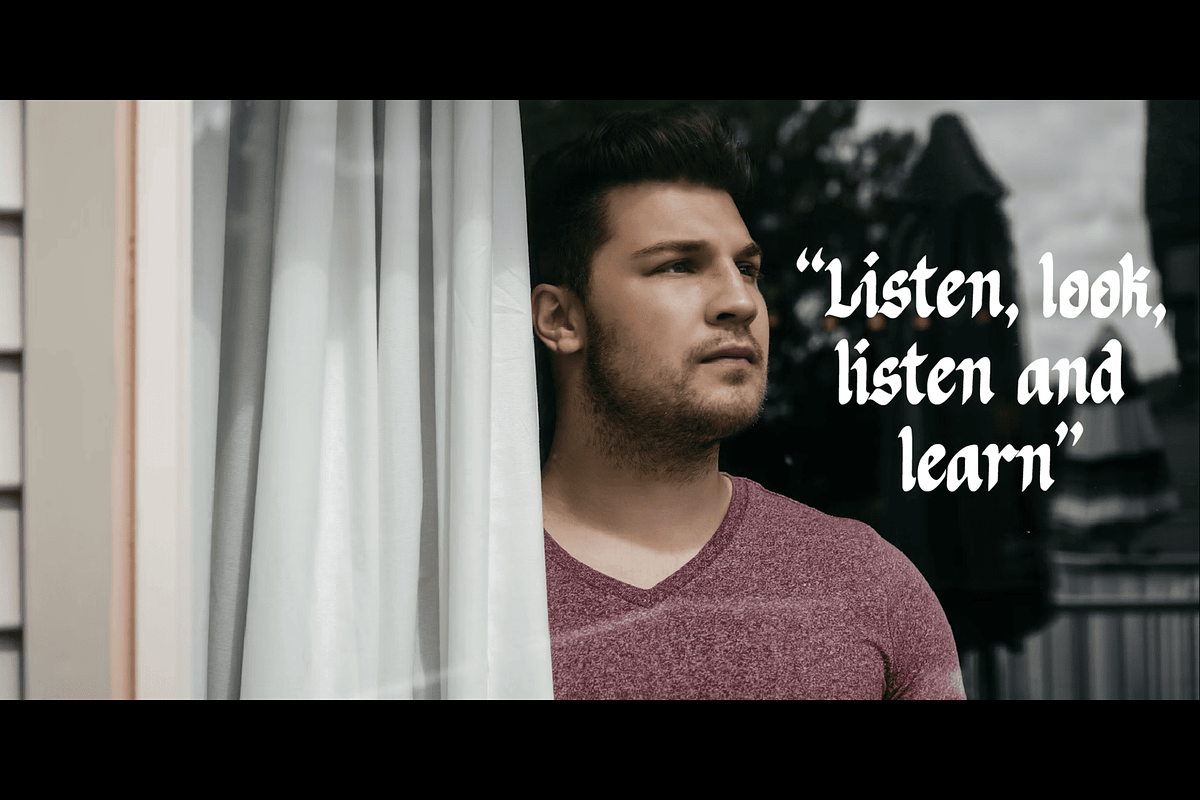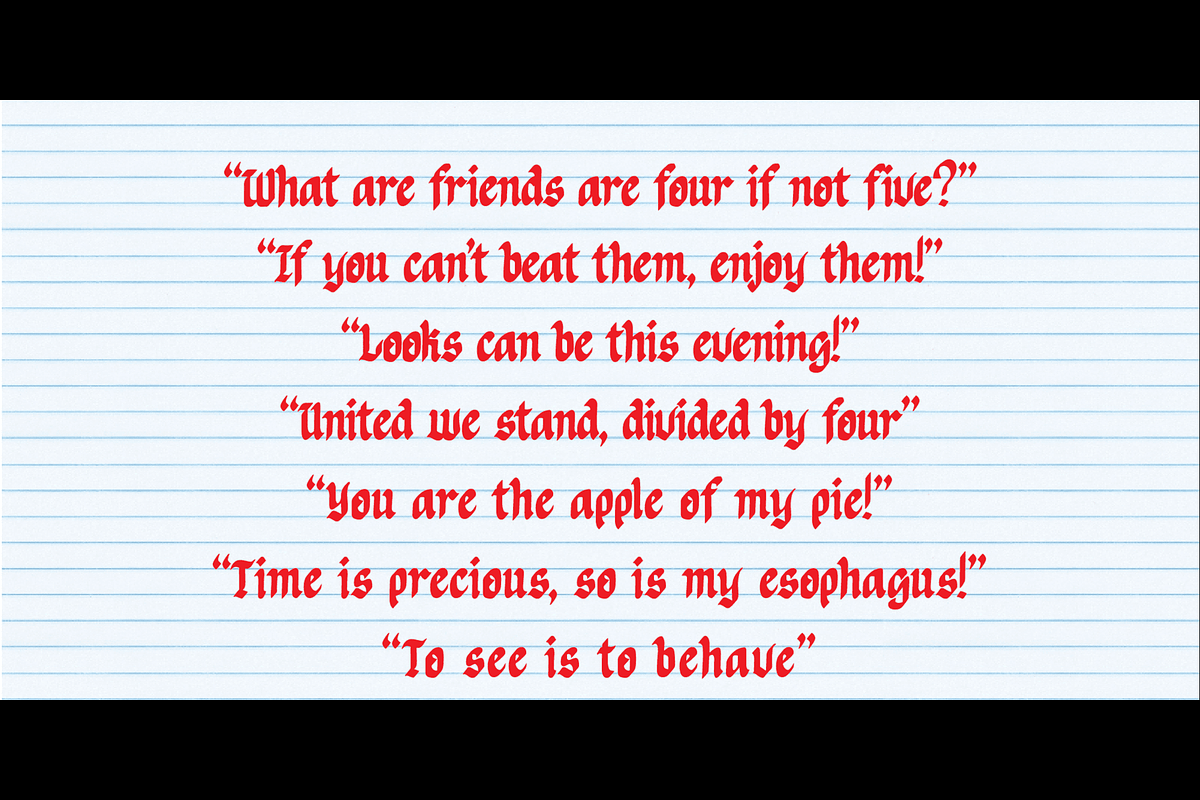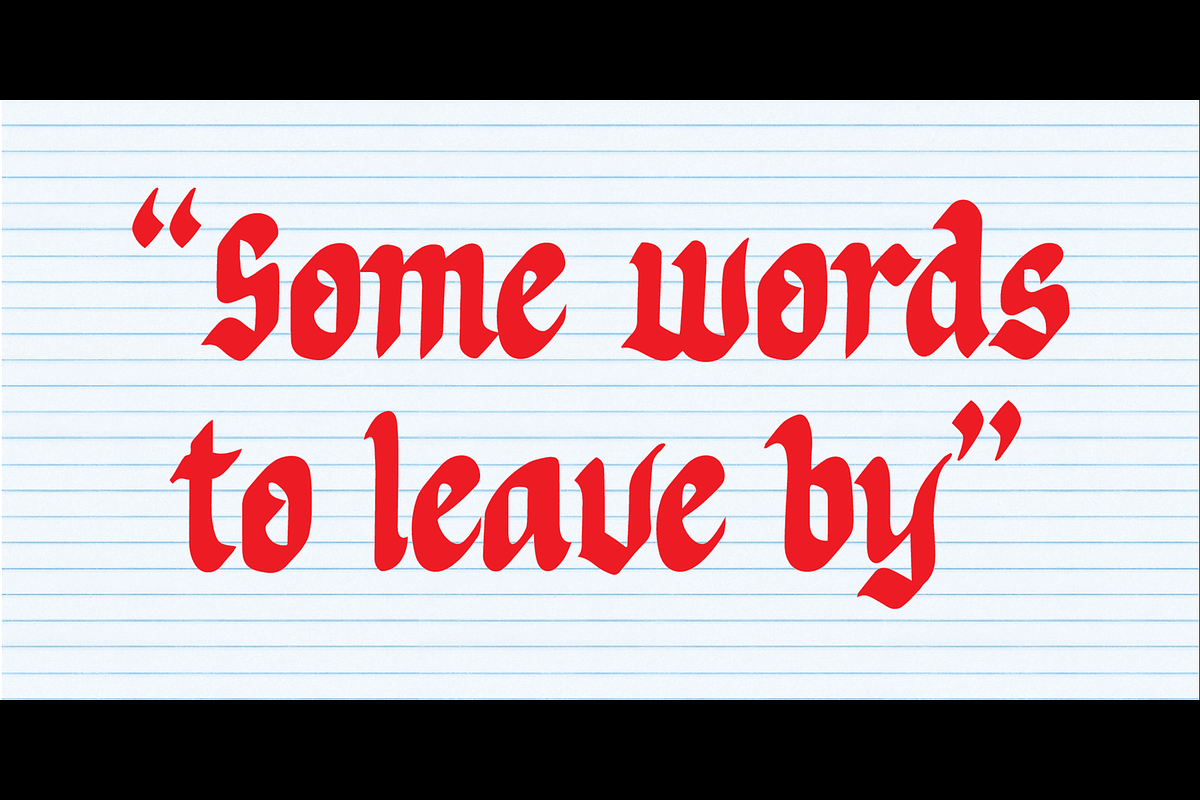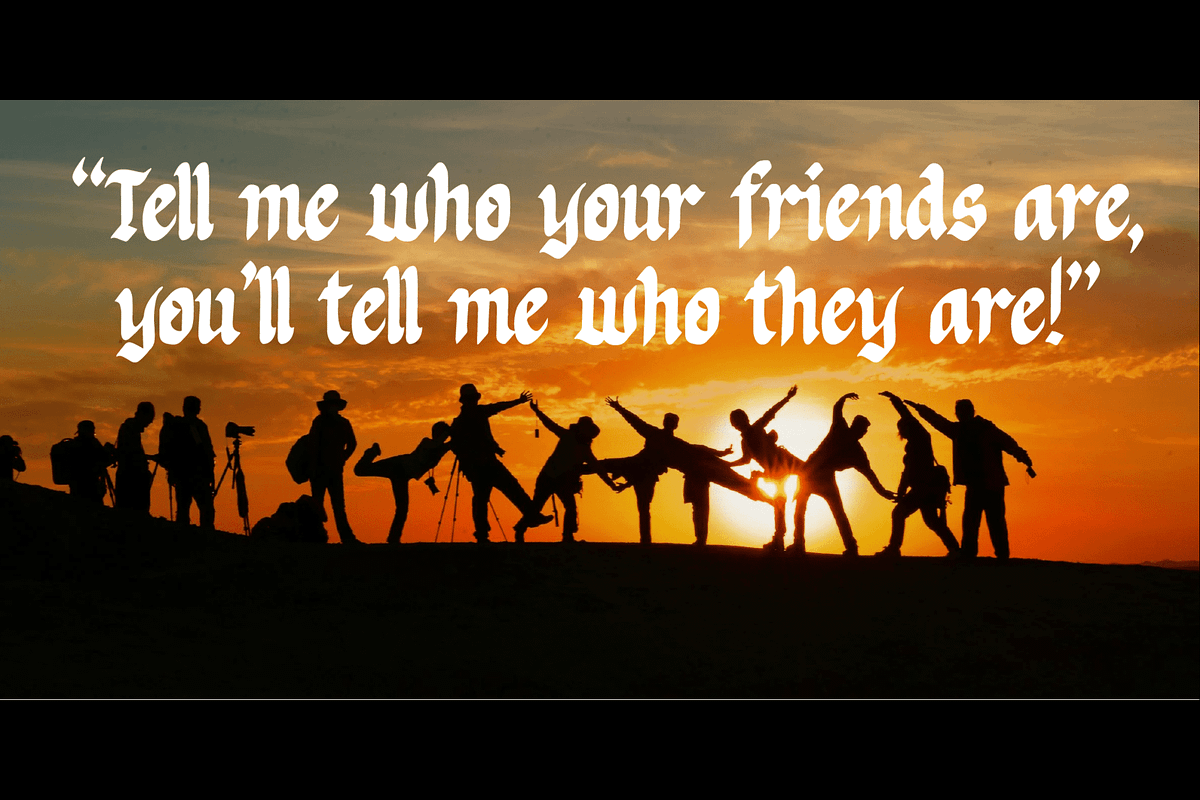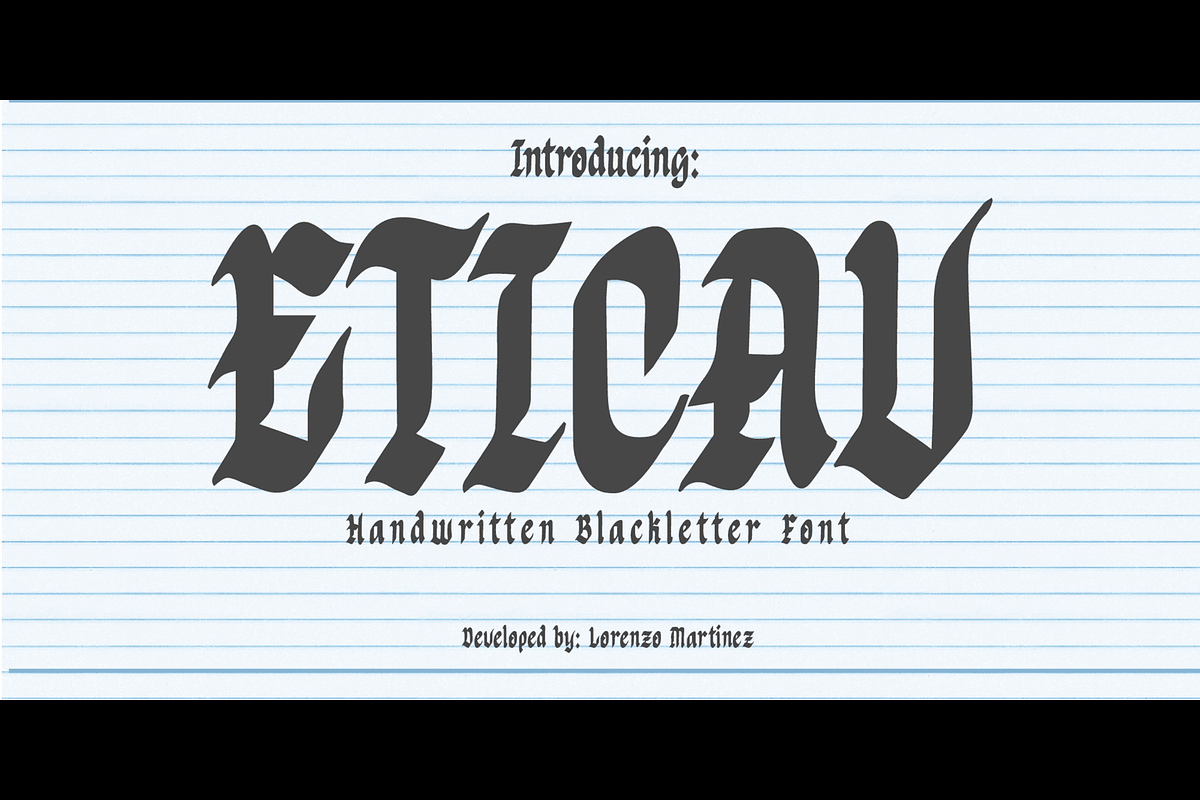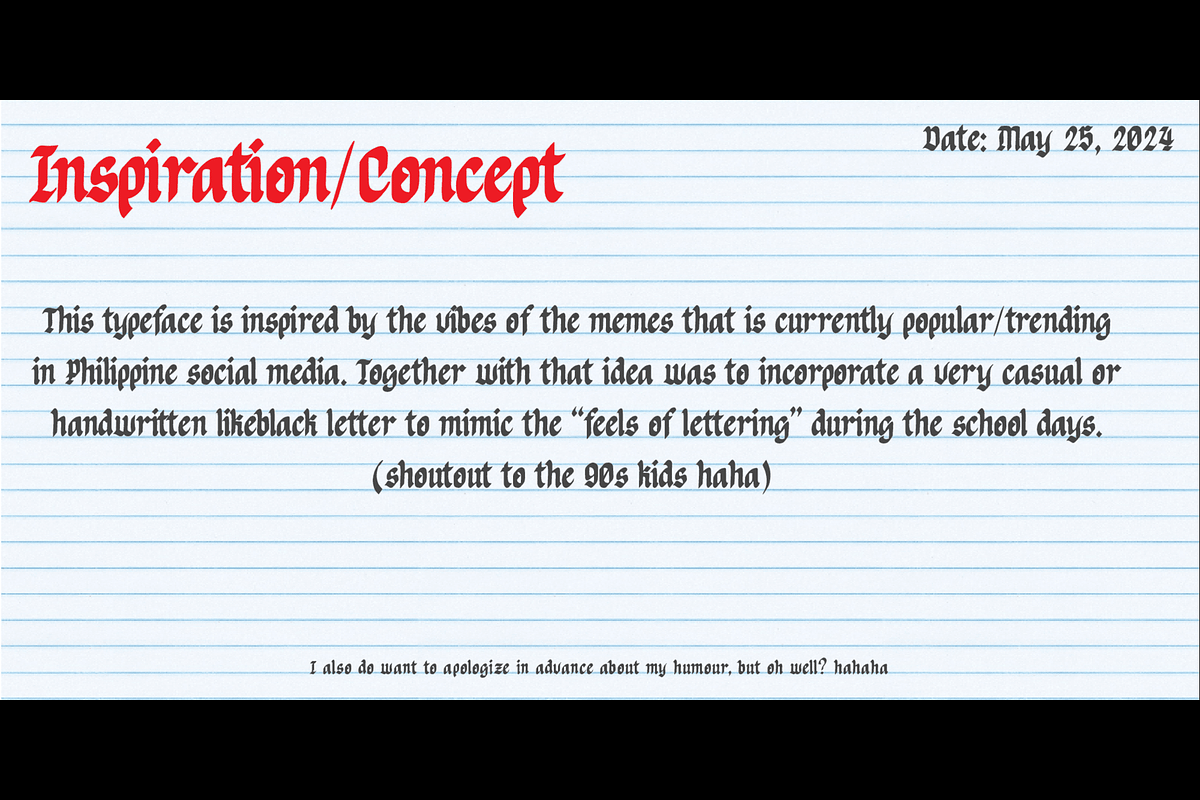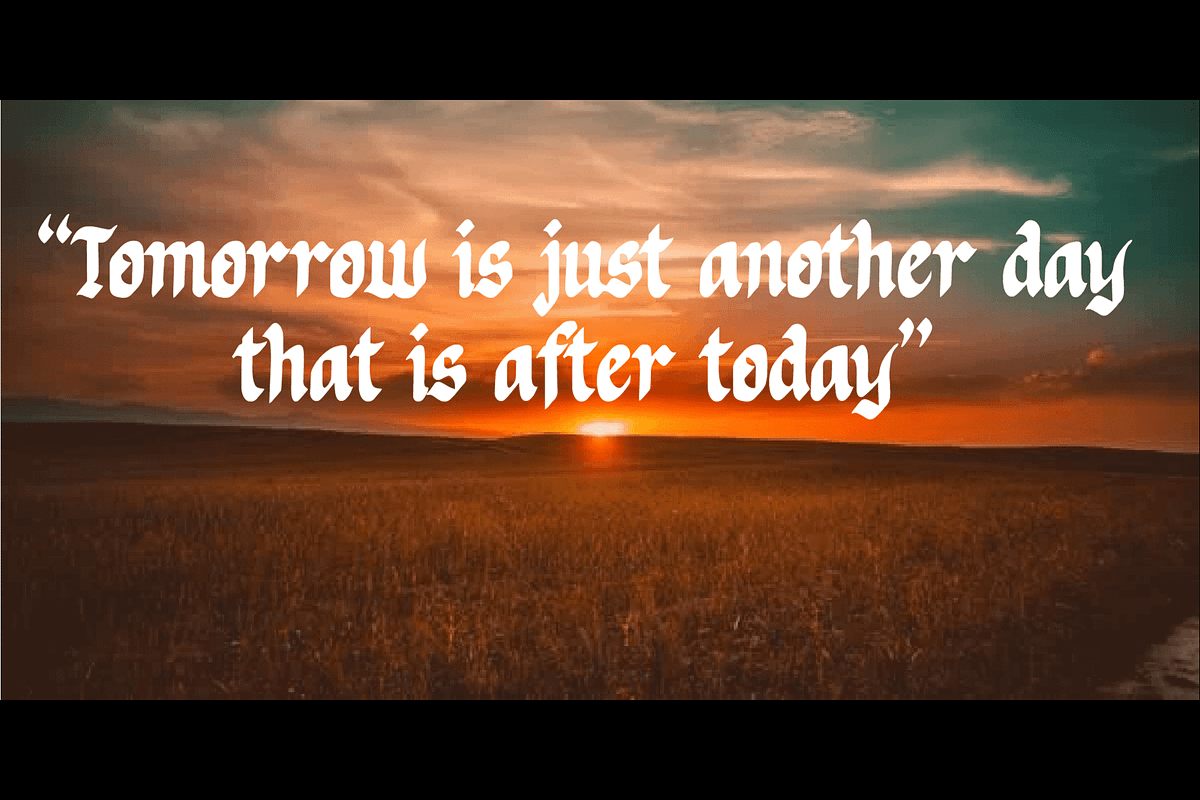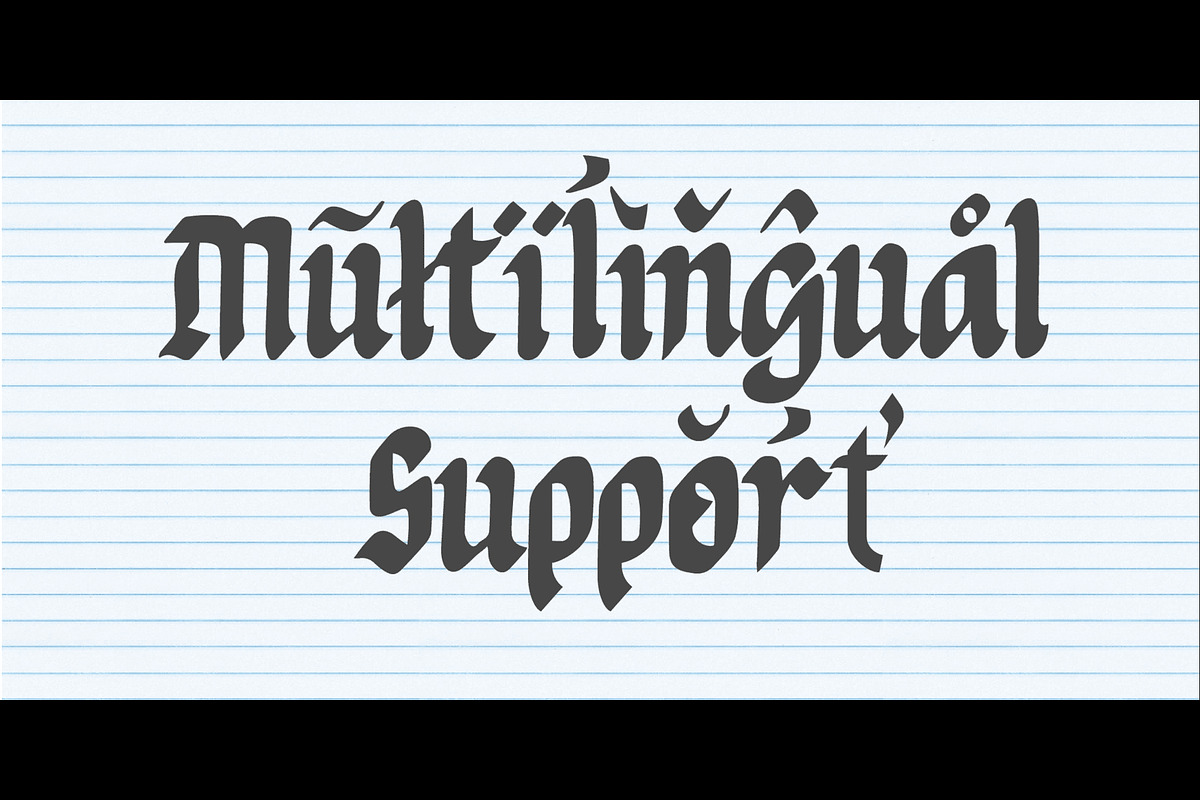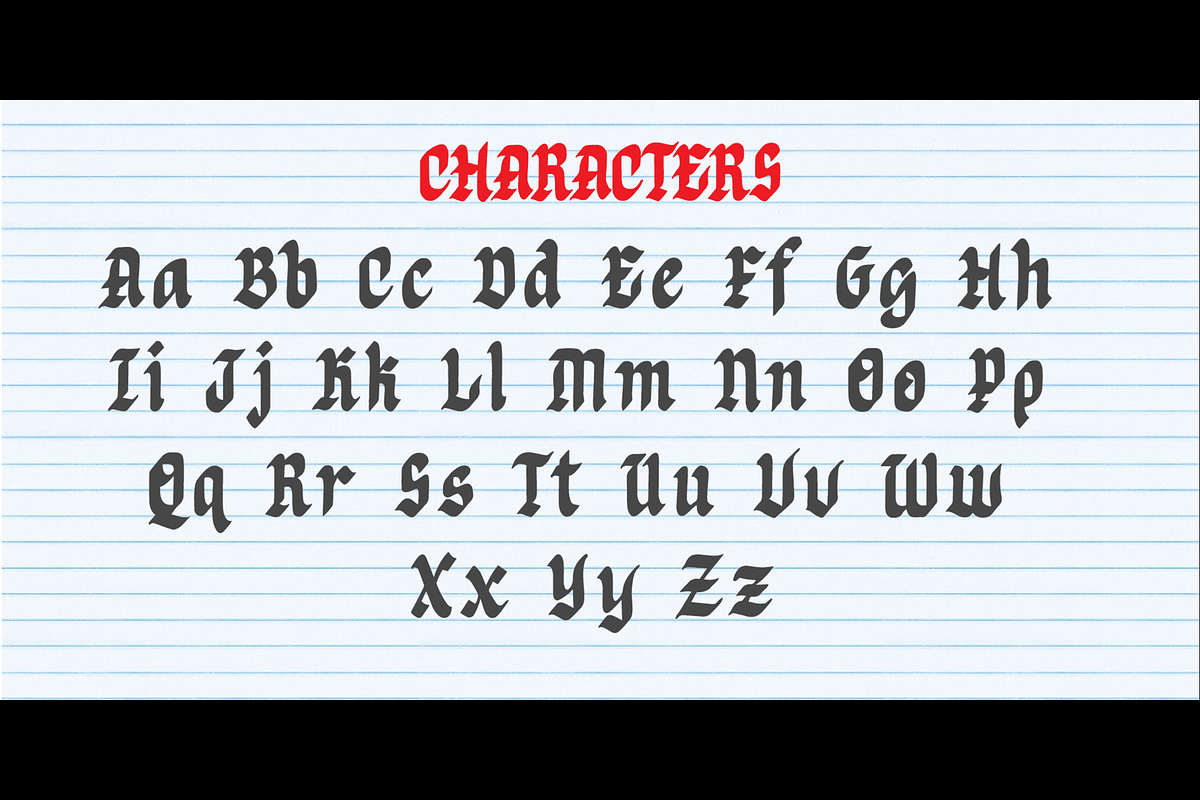
Eticav- Handwritten Blackletter Font
"Eticav" is a handwritten black letter font that is inspired by lettershapes from jeepney, school and public poster signages that is profound around Cavite (my own province )
Eticav is literally just an anagram of "Cavite"
This font can basically be used in almost all medias (with of course proper caution)